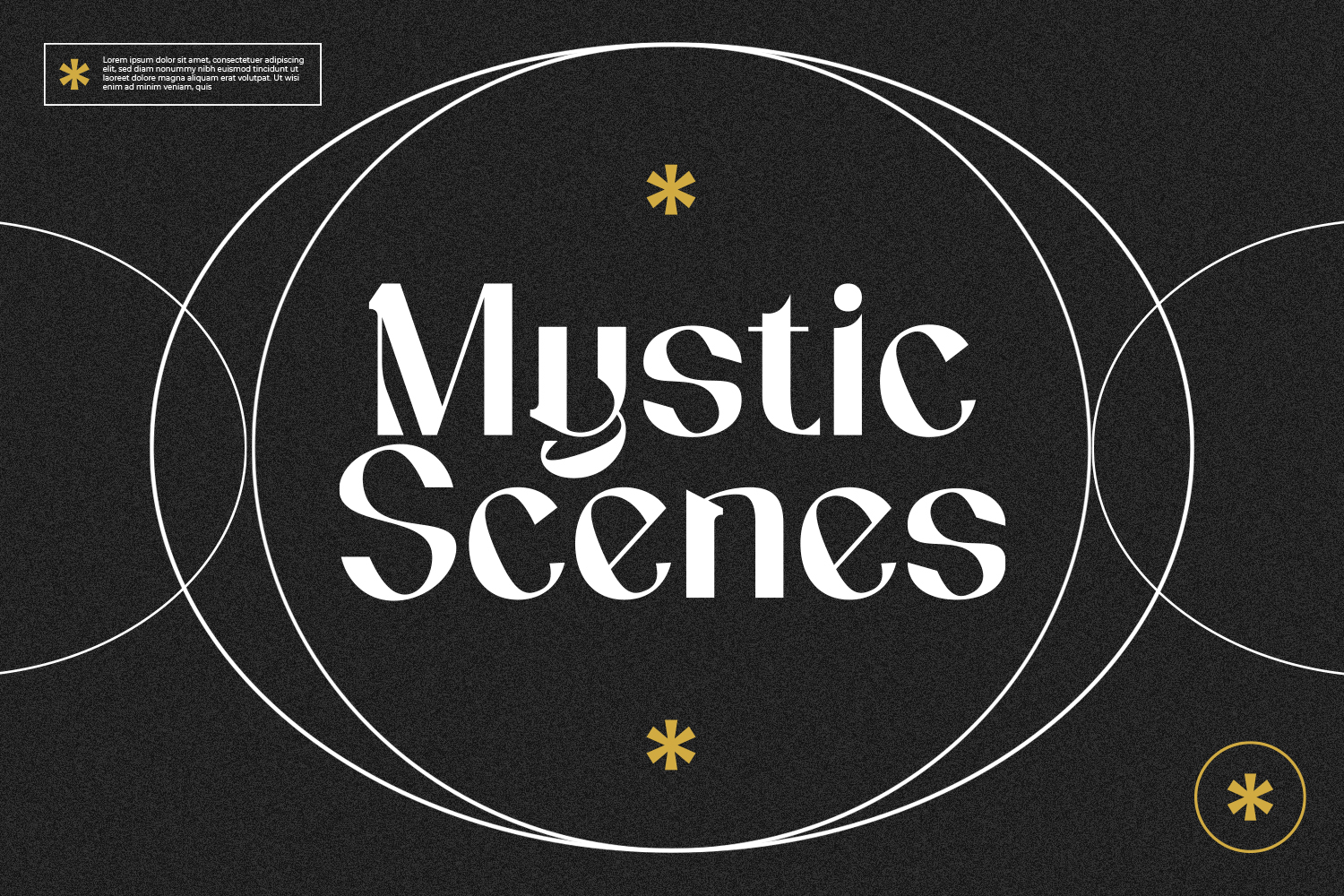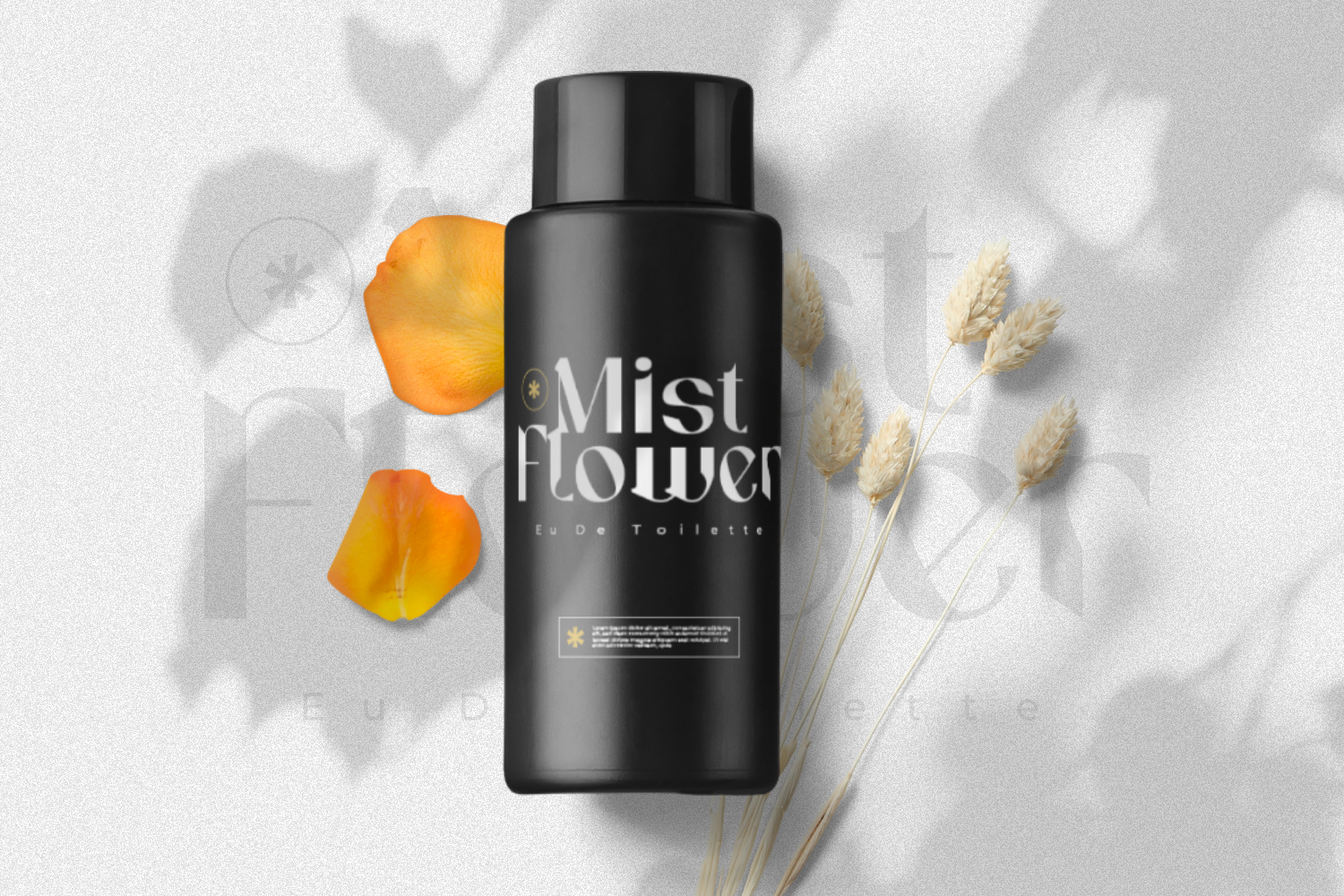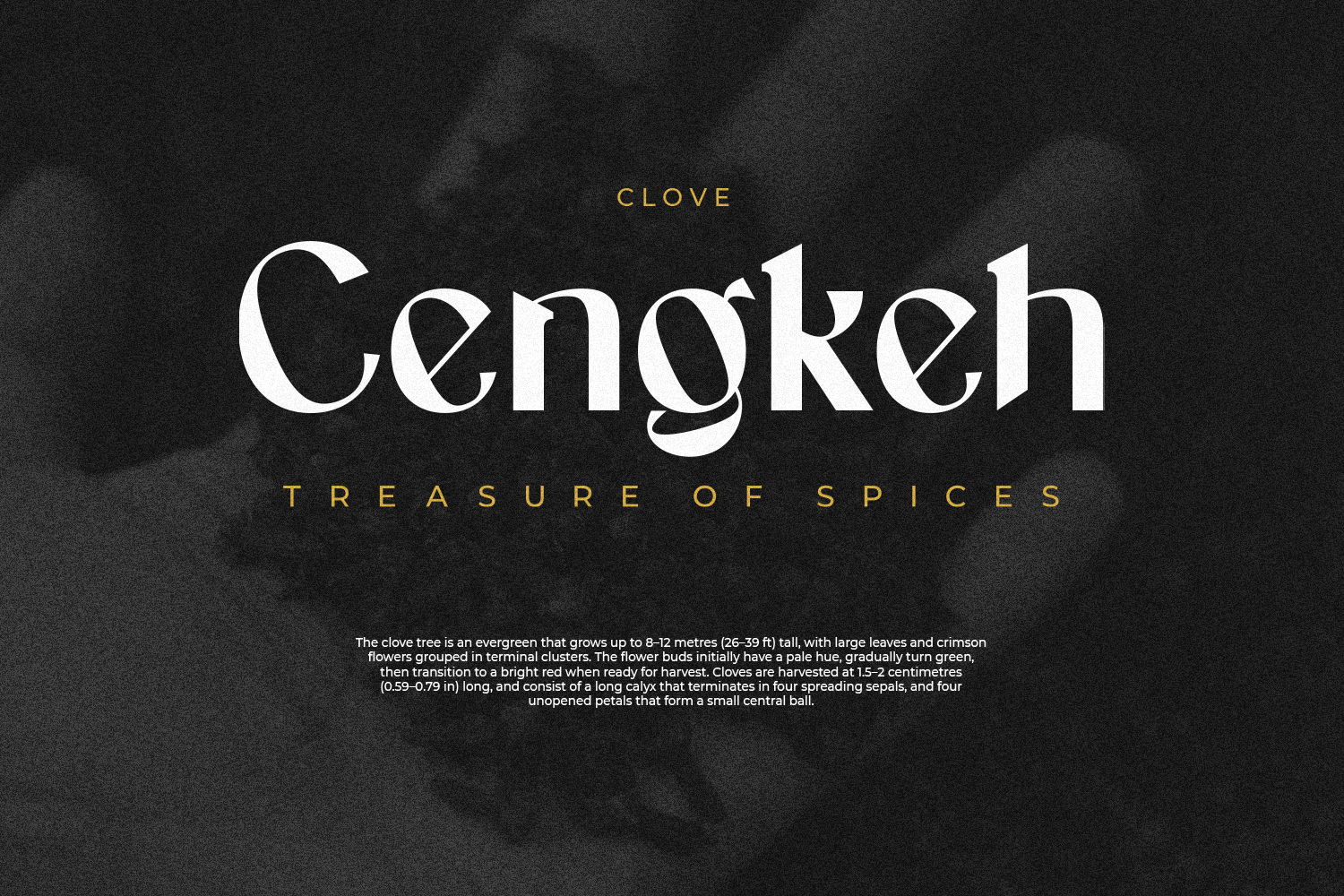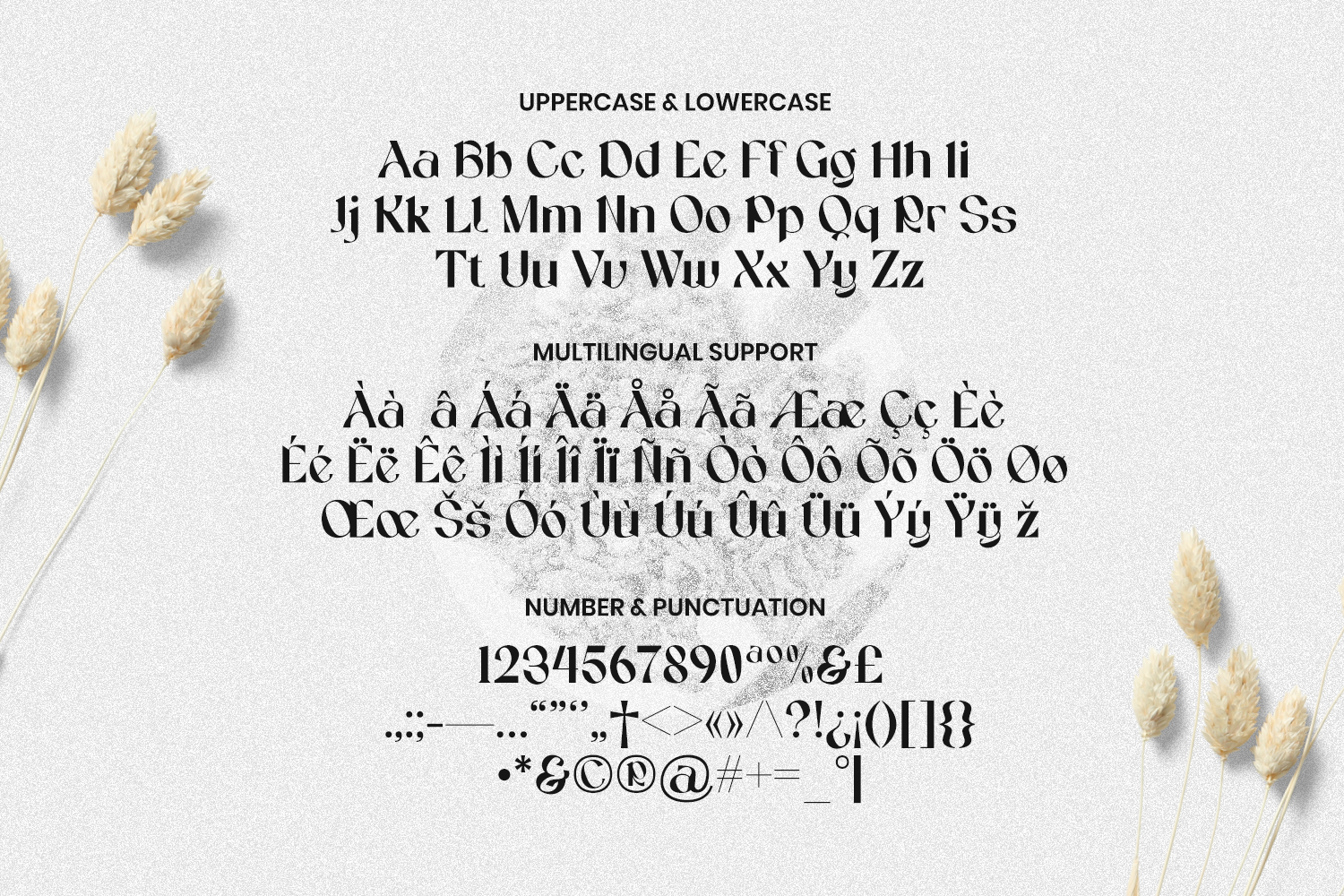
Gofannon is a bold and artistic display font that merges modern aesthetics with a touch of mysticism. Its unique curves, strong strokes, and stylish details make it an excellent choice for projects that demand character and individuality. Perfect for branding, packaging, posters, and editorial design, Gofannon stands out with its distinctive personality and high visual impact.
Featuring uppercase, lowercase, multilingual support, numbers, and punctuation, Gofannon is versatile enough for both creative headlines and elegant design compositions. Whether used for fashion, cosmetics, advertising, or lifestyle branding, this font adds a contemporary yet timeless flair to every project.
Gofannon